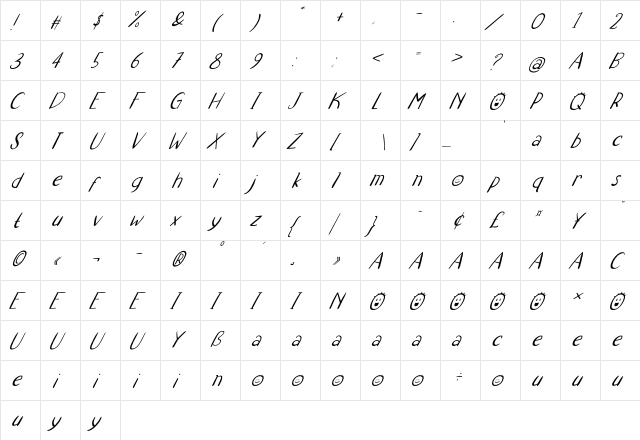
Kido Project Italic Regular
Design Context for Kido Project Italic Typeface
Kido Project Italic offers clean, dependable letterforms without strong stylistic allegiance, making it a practical choice for designers who need flexibility. The dynamic lean of this cut emphasises speed and emphasis in any layout.
Pro Tip: Use Kido Project Italic for emphasis, pull quotes, and subheadings where its slanted energy can add rhythm to the layout.